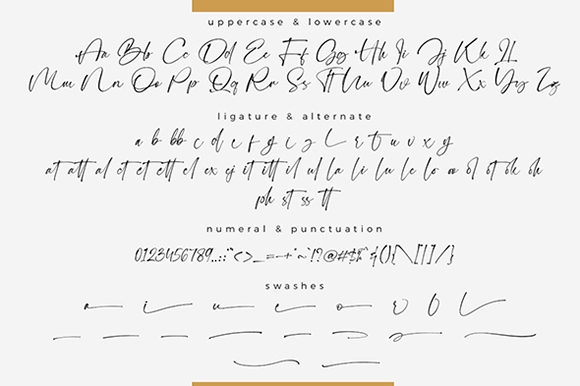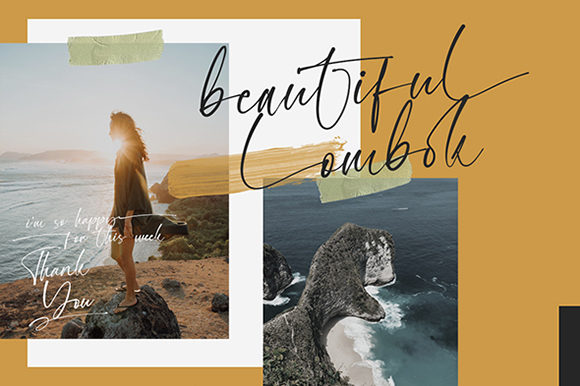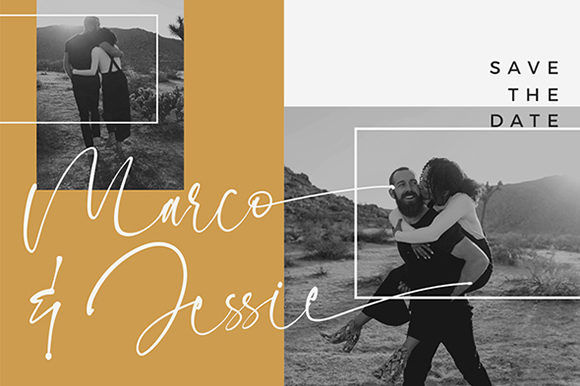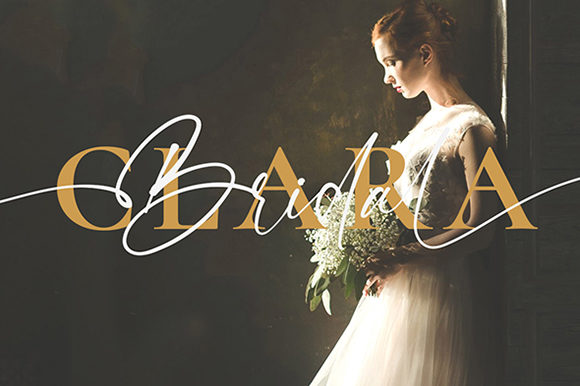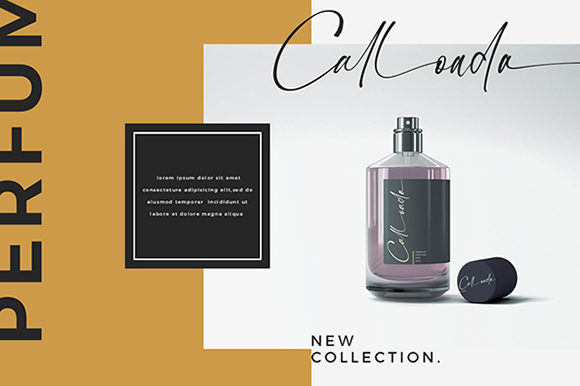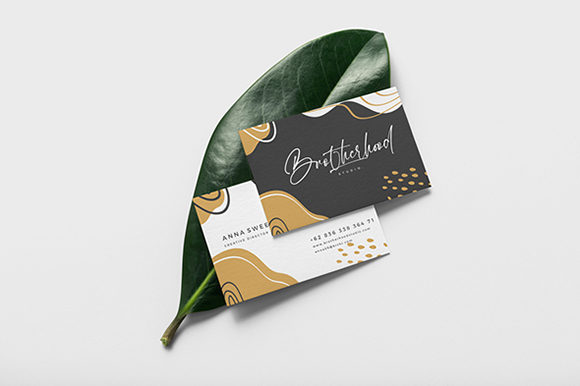
Introducing Calloada Font: Elevate Your Designs with Elegance and Sophistication
Are you on the hunt for a font that exudes class, relaxation, and versatility? Look no further than Calloada Font, an incredibly stylish and laid-back handwritten font that’s sure to capture your heart. In this article, we’ll dive into the wonderful world of Calloada, exploring its features, benefits, and uses, and discover why it’s a must-have for designers and crafters alike.
The Beauty of Calloada Font
Calloada Font is a stunning example of modern typography, boasting a unique blend of elegance and nonchalance. Its varying baseline, smooth lines, and gorgeous glyphs come together to create a truly distinctive look that’s both sophisticated and approachable. Whether you’re designing a luxury brand, a wedding invitation, or a craft project, Calloada’s versatile style is sure to impress.
PUA Encoding: Unlocking Endless Creative Possibilities
One of the standout features of Calloada Font is its PUA (Private Use Area) encoding. This means that you can access all of the font’s glyphs and swashes with ease, giving you unparalleled creative freedom. With PUA encoding, you can mix and match different characters, ligatures, and alternates to create truly one-of-a-kind designs. Whether you’re a seasoned designer or a crafty DIY enthusiast, Calloada’s PUA encoding makes it easy to bring your vision to life.
Stunning Features and Benefits
So, what makes Calloada Font so special? Here are just a few of its key features and benefits:
- Varying Baseline: Creates a sense of movement and fluidity, adding visual interest to your designs.
- Smooth Lines: Ensures a clean and elegant appearance, perfect for high-end brands and designs.
- Gorgeous Glyphs: Includes a wide range of characters, ligatures, and alternates to help you create unique and eye-catching designs.
- Stunning Alternates: Offers a variety of alternative characters to help you add personality and flair to your designs.
- PUA Encoding: Makes it easy to access and use the font’s glyphs and swashes, giving you maximum creative flexibility.
Endless Design Possibilities with Calloada Font
So, what can you create with Calloada Font? The possibilities are endless! Here are a few ideas to get you started:
- Luxury Brands: Use Calloada to create high-end logos, packaging, and marketing materials that exude sophistication and elegance.
- Wedding Invitations: Add a touch of romance and whimsy to your wedding stationery with Calloada’s beautiful, flowing script.
- Craft Projects: Use Calloada to create unique and eye-catching craft projects, such as handmade cards, gift tags, and scrapbook pages.
- Digital Designs: Incorporate Calloada into your digital designs, such as social media graphics, blog headers, and email newsletters.
In conclusion, Calloada Font is an exceptional addition to any designer’s or crafter’s toolkit. Its classy, relaxed, and versatile style makes it perfect for a wide range of projects, from luxury brands to crafty DIY endeavors. With its PUA encoding and stunning features, Calloada is sure to inspire your creativity and help you create spectacular designs that leave a lasting impression.
Get Ready to Fall in Love with Calloada Font